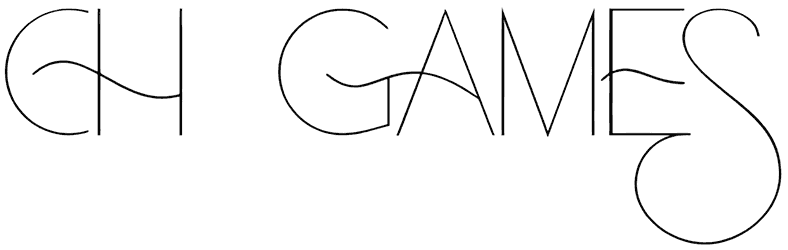
CH Games Font
Stop following others and improvise in your design like using a spa font. CH Games is a fabulous font that gives your design a delicacy that changes the whole effect of your work no matter it’s a wedding card, valentine’s decorations, or anniversary gift packaging.
Lacking the lowercase isn’t a downside for CH Games because it makes up for that with two weights for this typeface. Take look at our website, you’re not gonna regret it.